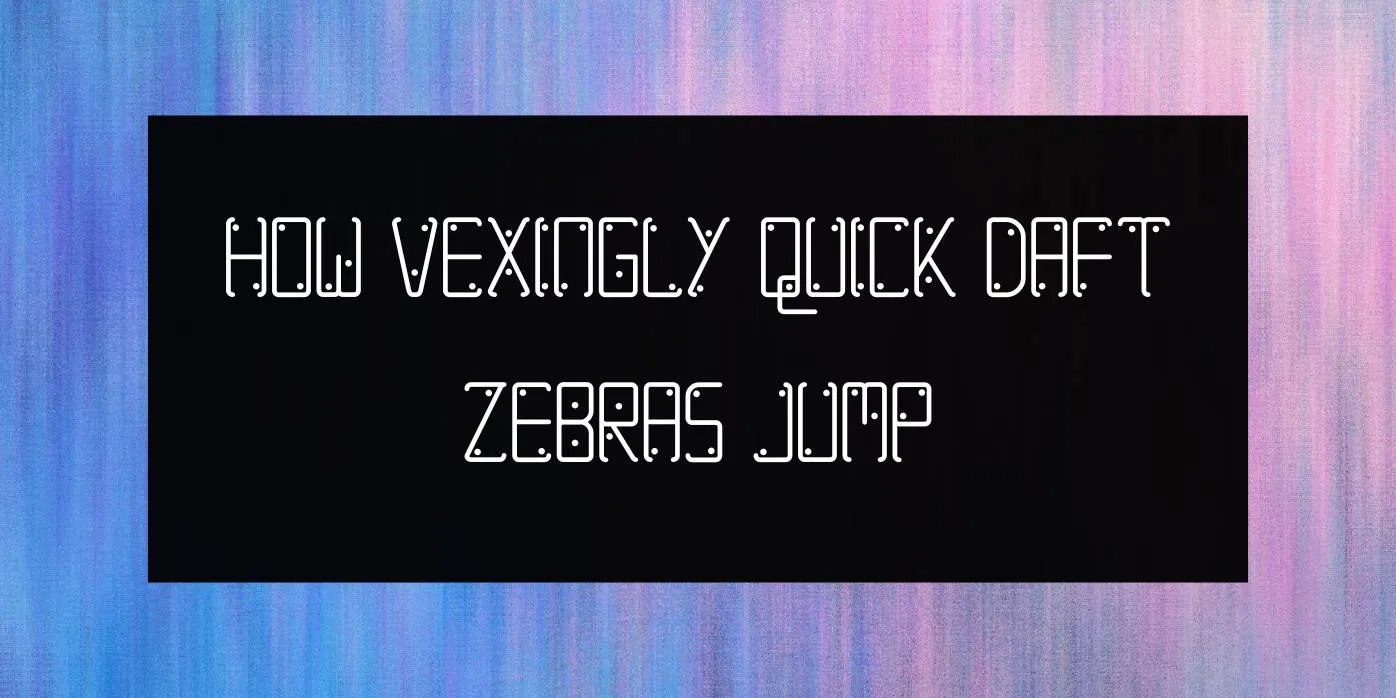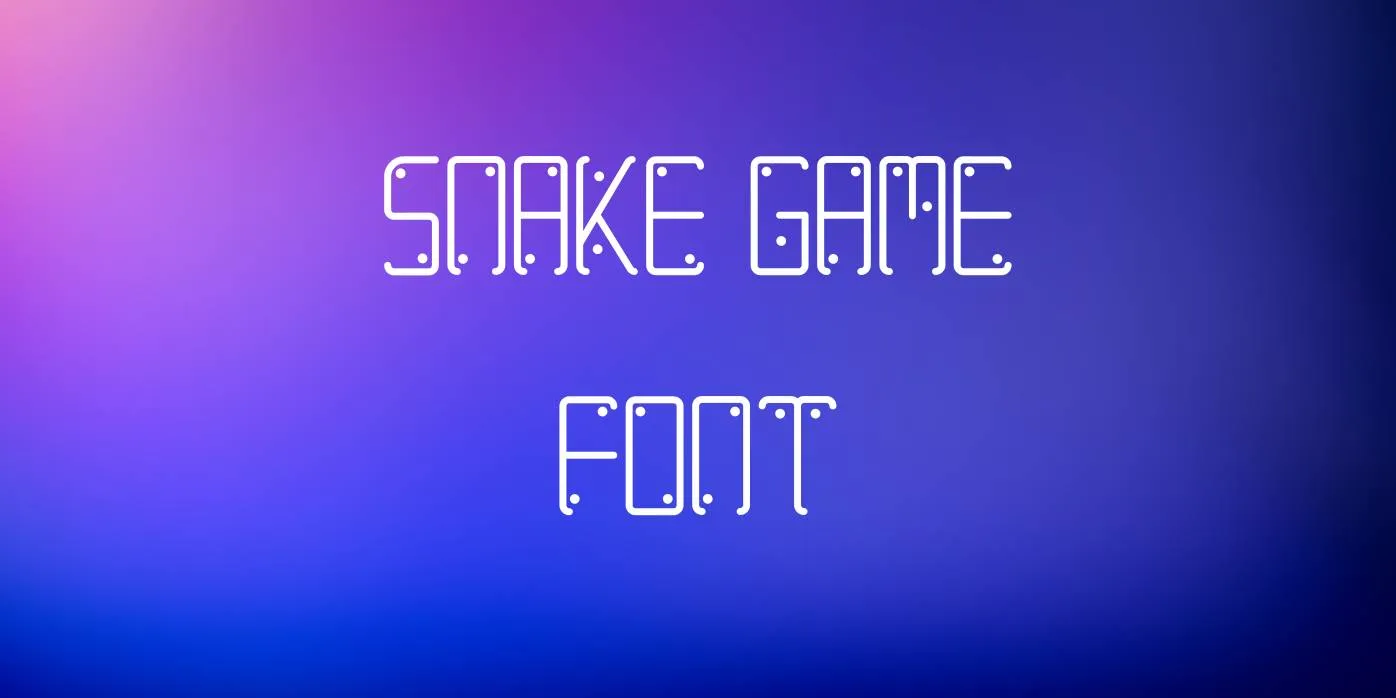
Snake Game Font
Introducing you to a decorative texture that was designed by Calligraphy Fonts. Snake Game Font is a stunning font that brings decorative text for many types of designs and projects. This typeface is free for only those types of projects that do not generate any type of money. But when you move forward to those projects that generate money then you have to pay for their license.